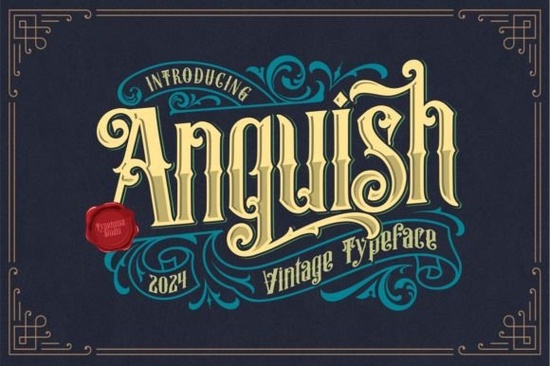
If you're working on a design that calls for drama, history, or a touch of gothic flair, the Anguish Font might be exactly what your project needs. This vintage blackletter typeface blends classic letterforms with a raw, handcrafted energy perfect for anyone creating logos, posters, album art, or even tattoo-inspired graphics. Whether you run a small print-on-demand shop or dabble in personal design projects, fonts like this add instant character without needing extra embellishments.
Blackletter fonts have deep roots in medieval manuscripts and early printing presses, but modern interpretations like Anguish bring them into contemporary use without losing their soul. The sharp serifs, dense strokes, and ornate detailing give it a bold presence that stands out on everything from T-shirt prints to book covers. And because it’s designed with versatility in mind, it scales well from tiny merch tags to large event flyers.
What kinds of projects work best with Anguish?
Thanks to its strong visual identity, Anguish shines in contexts where mood and atmosphere matter. Here are a few natural fits:
- Vintage or gothic-themed logos for breweries, barbershops, or music bands
- Tattoo flash sheets or custom ink designs (it pairs especially well with traditional American or old-school styles)
- Album covers and band merch for metal, punk, or folk genres
- Book covers and chapter headers for historical fiction, horror, or fantasy novels
- Event posters for themed parties, theater productions, or craft fairs
How does Anguish compare to other blackletter fonts?
Not all blackletter fonts are created equal. Some lean too ornate for practical use; others feel stiff or overly digital. Anguish strikes a middle ground it keeps the traditional structure but adds subtle irregularities that mimic hand-drawn authenticity. That makes it more approachable than ultra-formal gothic scripts while still feeling unmistakably vintage.
For designers who need flexibility, it also includes standard Latin characters with enough spacing to avoid visual crowding a common issue with dense blackletter styles. You won’t need to manually adjust kerning for most headline uses, which saves time when you’re working on tight deadlines.
Tips for using Anguish effectively
Because of its strong personality, less is often more. Here’s how to get the best results:
- Use it for headlines or short phrases not body text. Its intricate details lose impact at small sizes.
- Pair it with a clean sans-serif (like Montserrat or Helvetica) for contrast and readability in supporting text.
- Avoid overloading your layout. Let the font be the focal point; skip heavy textures or competing decorative elements.
- Test print quality if you’re using it on physical goods. Fine serifs can blur on low-res printers, so request a sample first.
Remember: great typography isn’t about using the “coolest” font it’s about choosing the right tool for the message you want to send. Anguish works best when your project already leans into themes of heritage, rebellion, mystery, or craftsmanship.